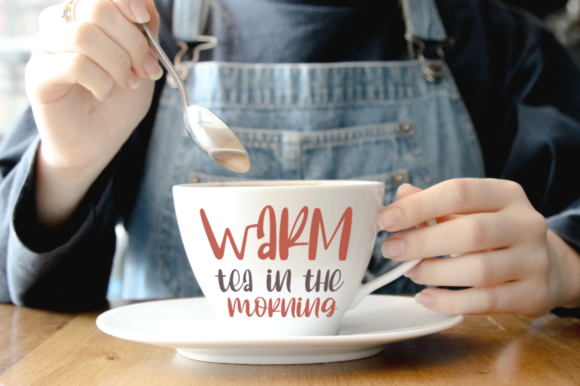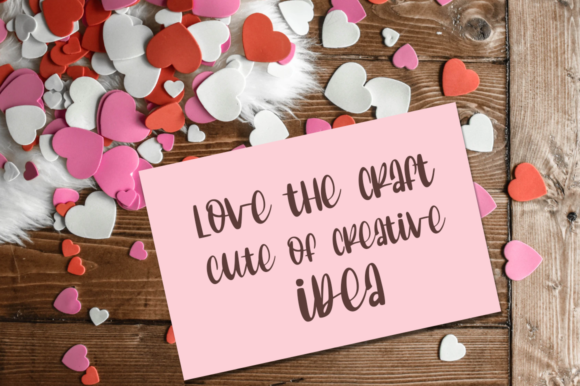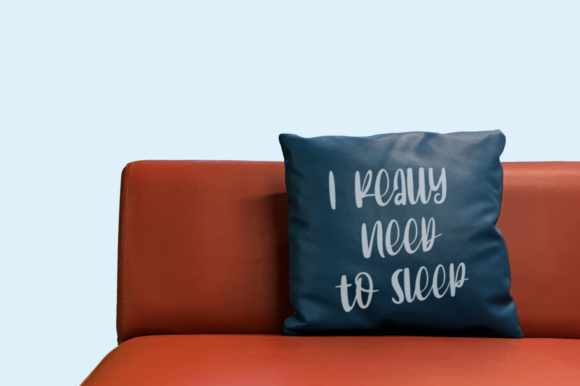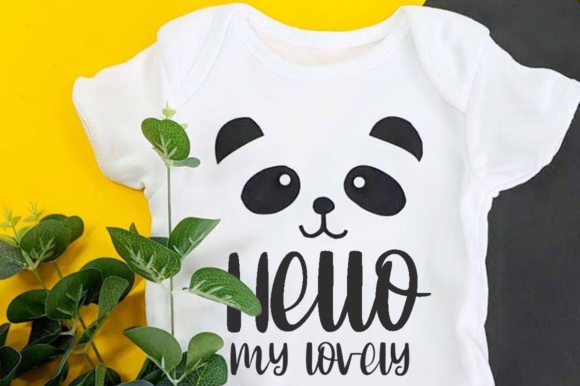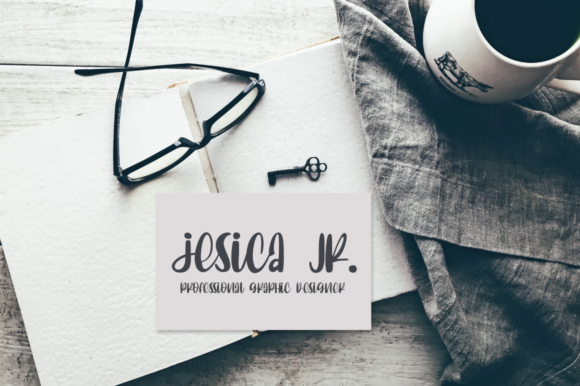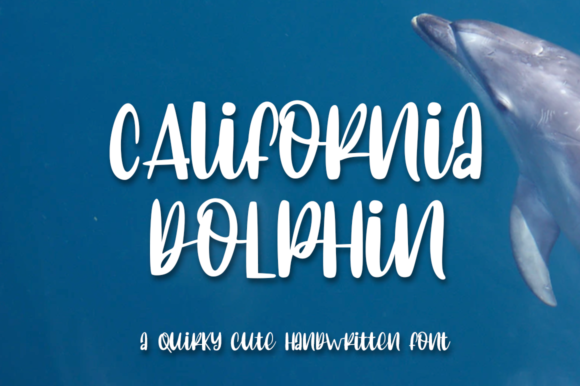
The Ultimate Guide to California Dolphin Font: A Friendly and Versatile Script
I’ll never forget the time I was working on a DIY project for a client’s wedding invitation. I had the design concept nailed down, but I was struggling to find the perfect font to bring it all together. That’s when I stumbled upon California Dolphin, a cute and casual handwritten font that instantly caught my eye. With its friendly feel and gorgeous swashes, I knew I had found the one. In this article, I’ll share my experience with California Dolphin, its features, and how to make the most of it in your creative projects.
A Personal Review: What I Love About California Dolphin
California Dolphin is more than just a font – it’s a creative companion that can elevate any project. Here are some things I love about it:
• ✨ Friendly and approachable feel: California Dolphin has a warm and inviting personality that makes it perfect for projects that require a personal touch.
• ✅ Gorgeous swashes and ligatures: The font features beautiful swashes and ligatures that add a touch of elegance and sophistication to any design.
• 🌈 Versatile and adaptable: California Dolphin can be used for a wide range of projects, from Instagram graphics to calligraphy scripts for DIY projects.
While California Dolphin is an amazing font, there are a few things to keep in mind:
• 🤔 Some characters may require manual adjustment: Depending on the project, you may need to manually adjust some characters to ensure they fit perfectly.
• ⚠️ Not suitable for very formal projects: California Dolphin’s friendly and casual nature makes it less suitable for very formal projects, such as corporate branding or official documents.
A Practical Guide: Using California Dolphin in Your Projects
3. Experiment with different OpenType features, such as swashes and ligatures, to add some personality to your design.
California Dolphin was designed with the intention of creating a font that would evoke a sense of warmth and friendliness. The designer wanted to create a font that would be perfect for creative projects, such as invitations, cards, and social media graphics. With its gorgeous swashes and ligatures, California Dolphin is sure to bring a touch of personality to any design.
Q: What type of projects is California Dolphin suitable for?
A: California Dolphin is perfect for creative projects, such as invitations, cards, social media graphics, and DIY projects.
Q: Is California Dolphin a difficult font to read?
A: No, California Dolphin is a clear and legible font, making it perfect for body text and headlines.